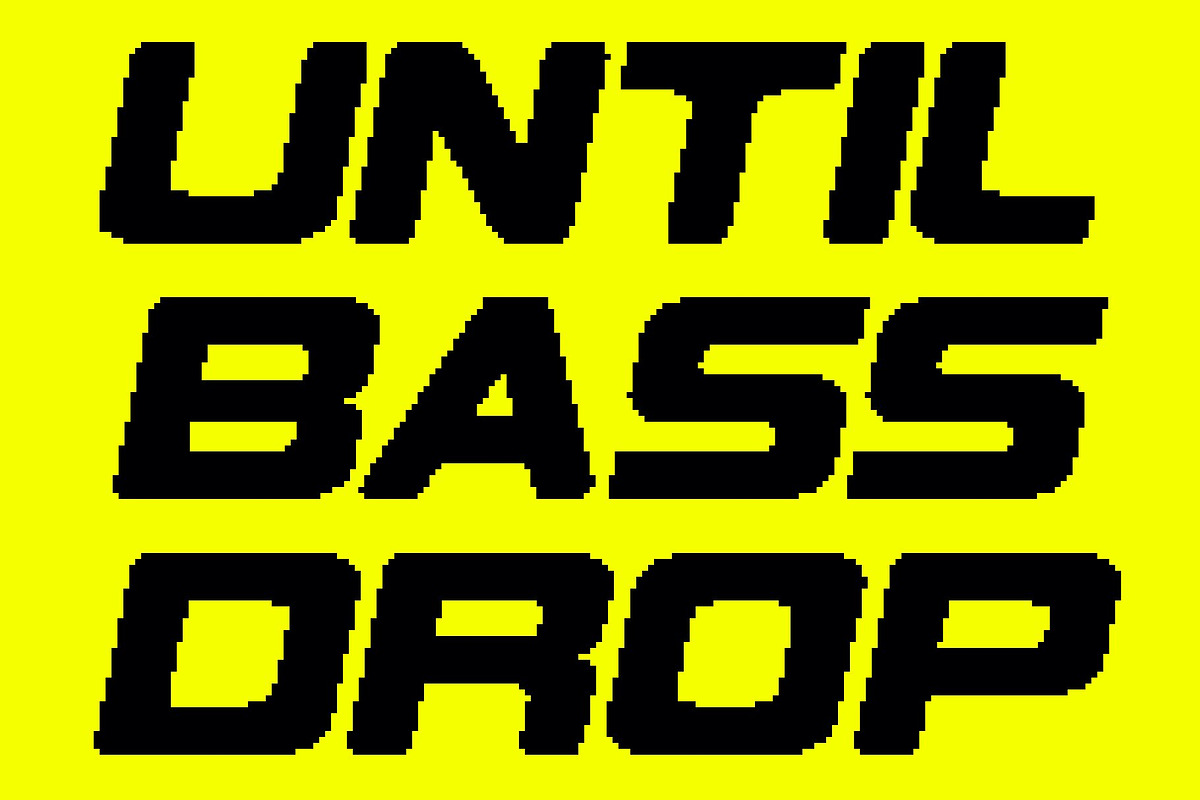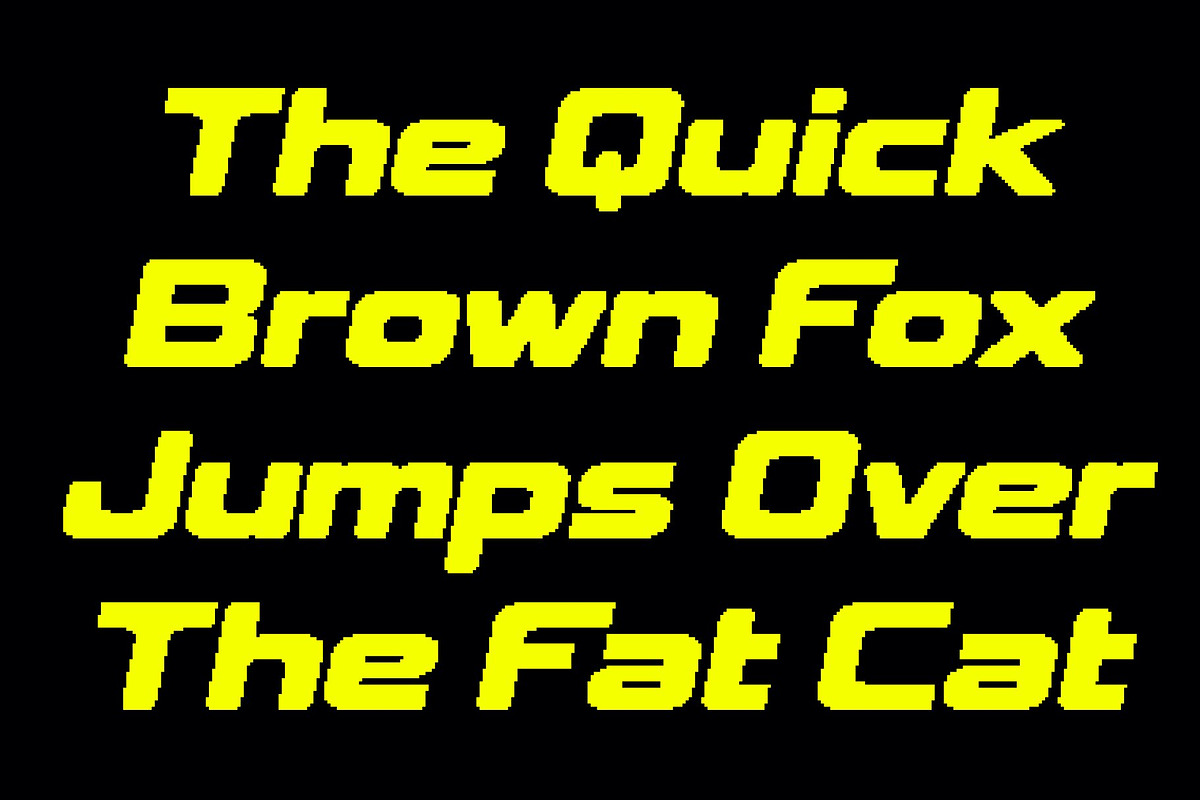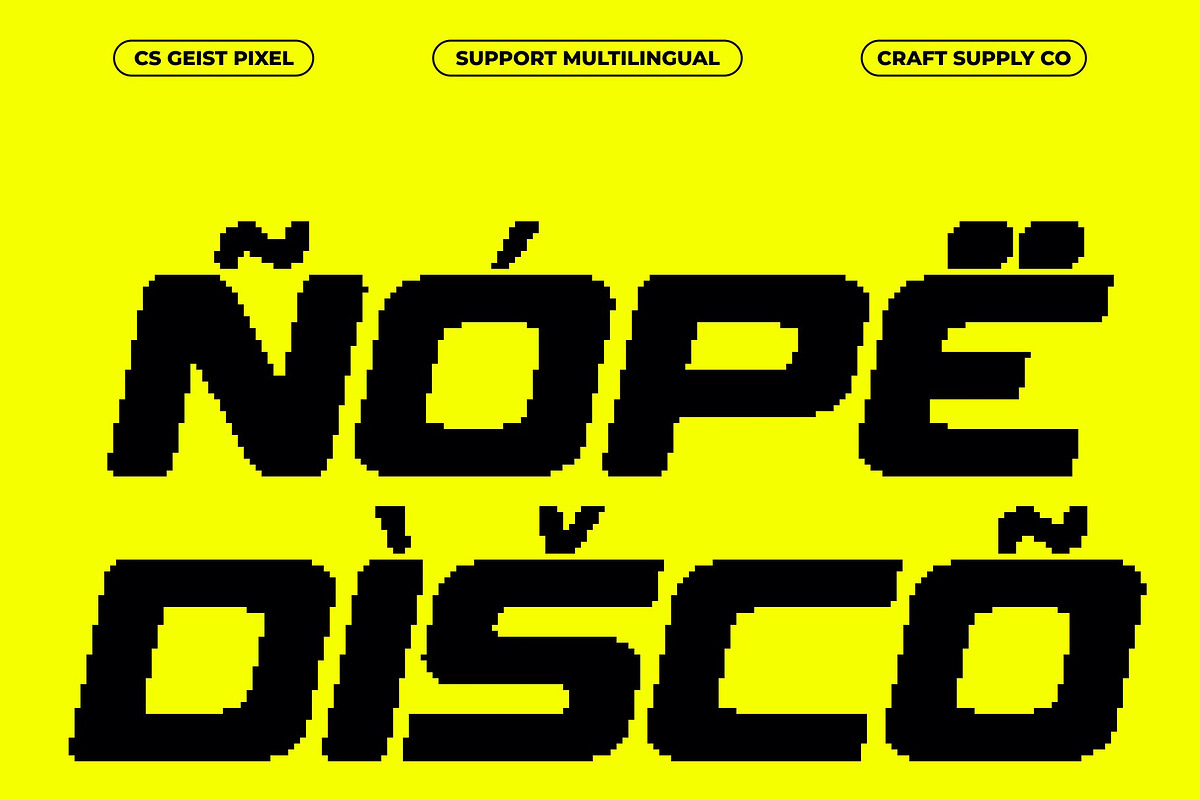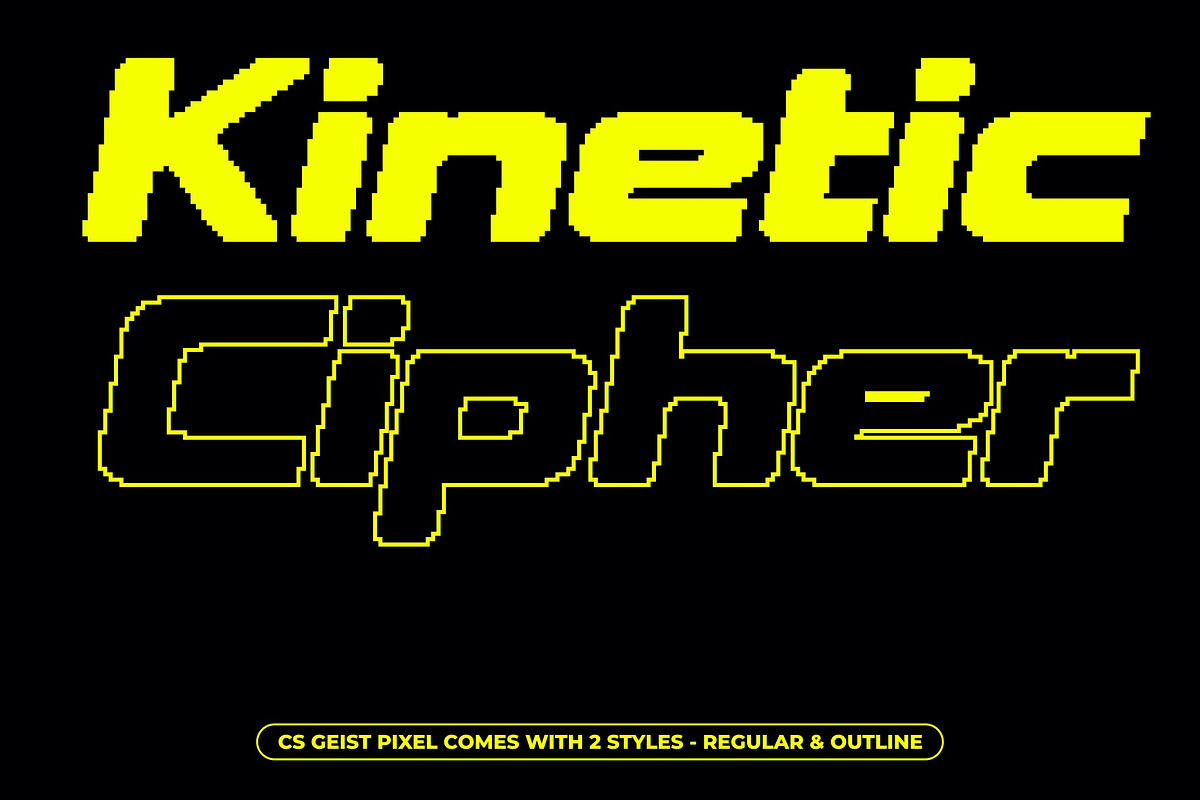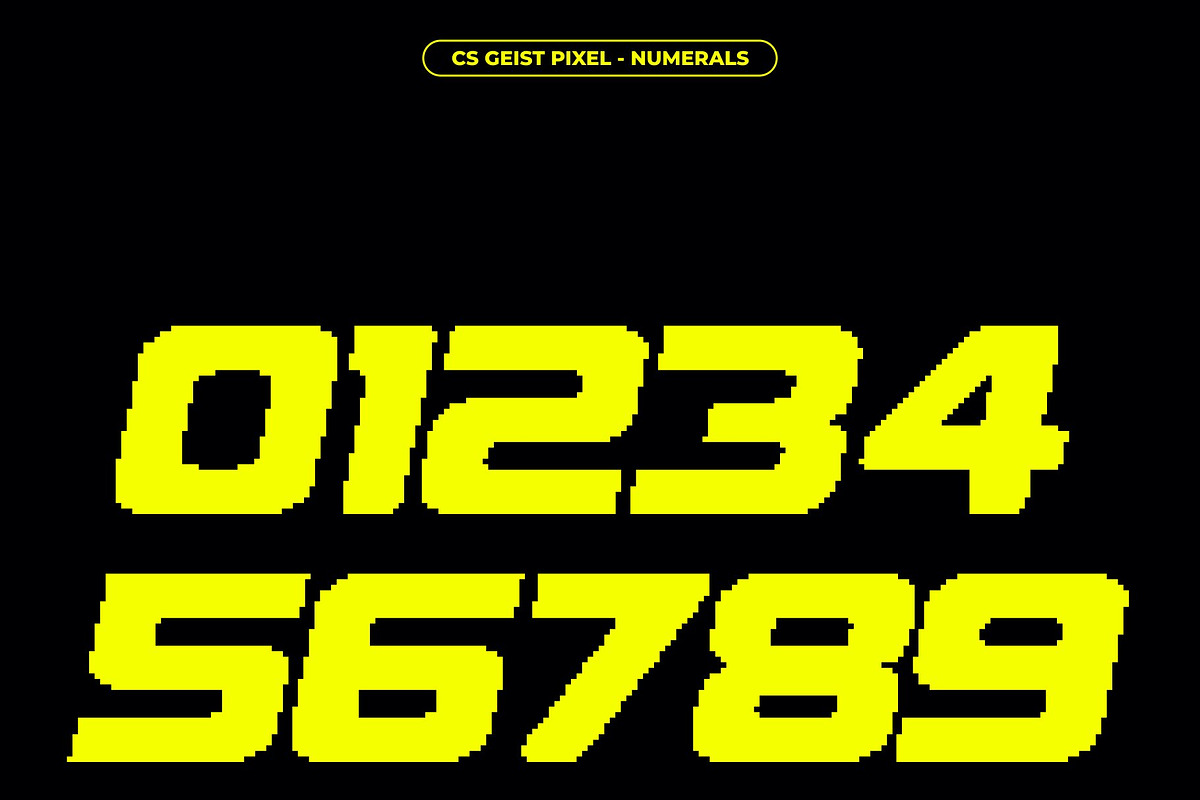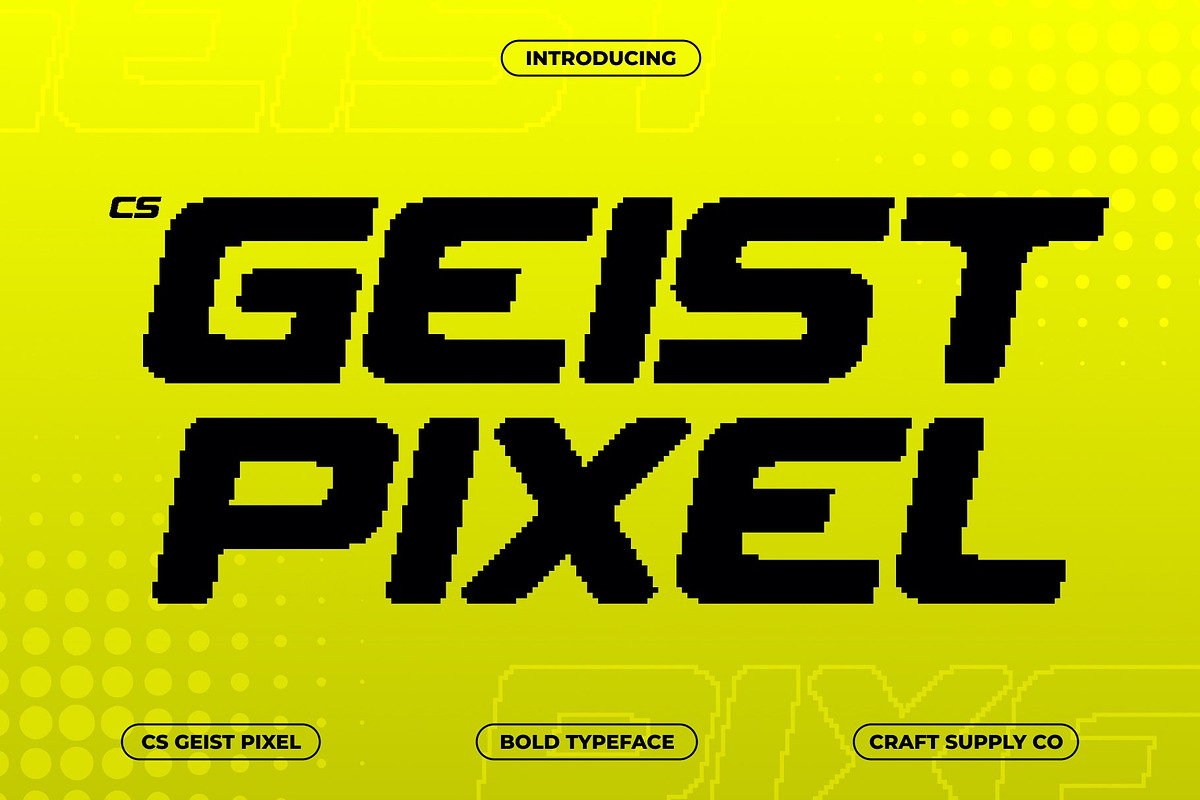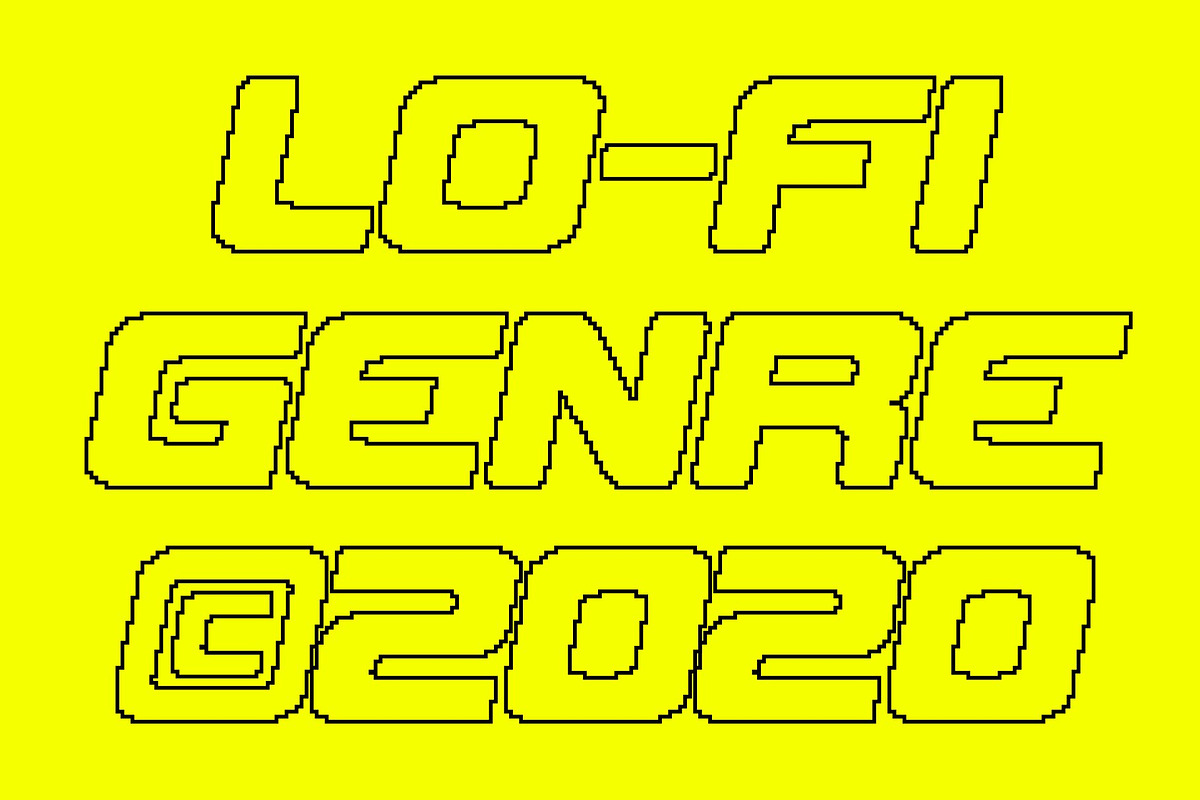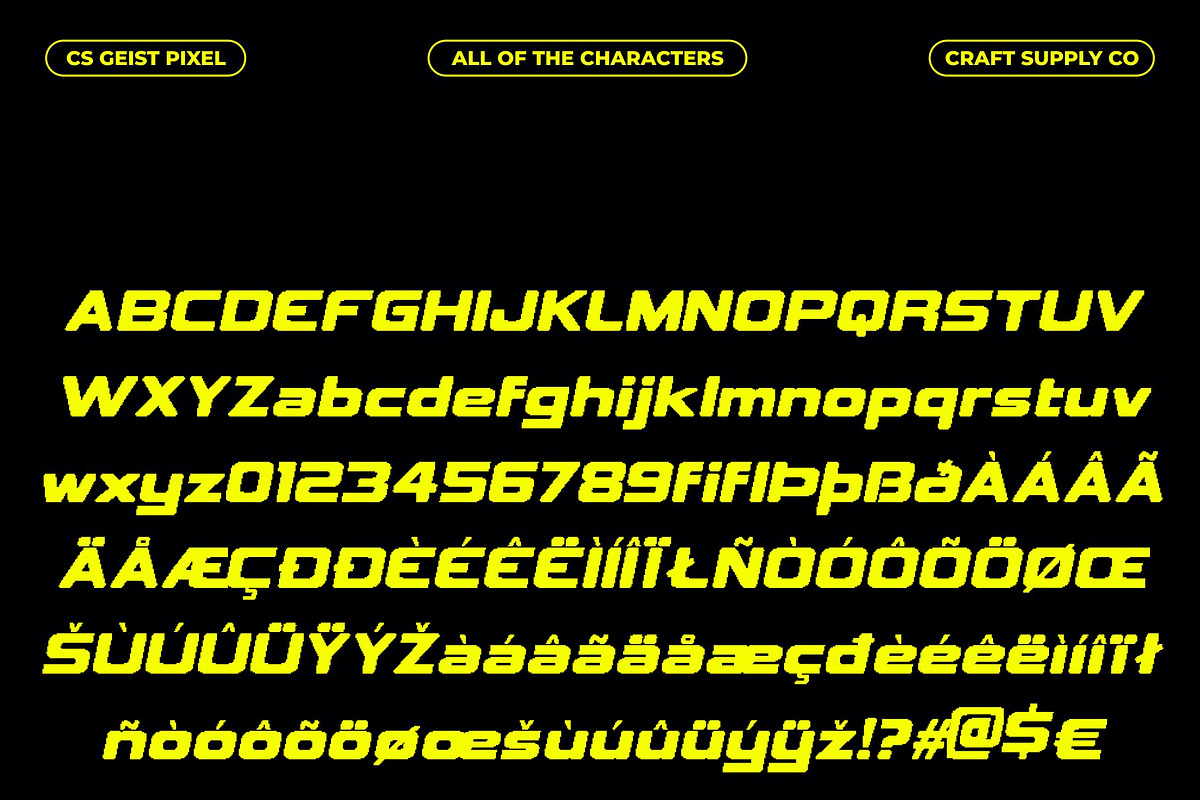
CS Geist Pixel
CS Geist Pixel – Techno Power with Digital Precision
Bold Pixel Letterforms with Striking Presence This is a techno-inspired sans serif display font designed to deliver immediate visual impact. Its sharp, pixel-based letterforms project strength, confidence, and modern attitude. The bold construction ensures every word stands out clearly, making it ideal for attention-grabbing headlines, logos, and statement graphics.
Futuristic Energy with Retro-Tech Vibes Infused with modern techno aesthetics and classic pixel structure, this font captures the spirit of digital speed and innovation. The geometric forms and crisp edges evoke futuristic interfaces while nodding to old-school technology, creating a dynamic balance between past and future.
Designed for High-Impact Display Use This font performs best in display applications where clarity and power matter most. From posters and branding to UI visuals and digital campaigns, its structured pixel rhythm maintains readability while amplifying bold expression across both screen and print formats.
Perfect for Creative, Tech, and Digital Projects Ideal for futuristic branding, gaming visuals, technology campaigns, and experimental design, this font communicates innovation and energy with confidence. This font turns typography into a bold digital statement precise, modern, and visually unstoppable.
- CS Geist Pixel Regular
- CS Geist Pixel Outline